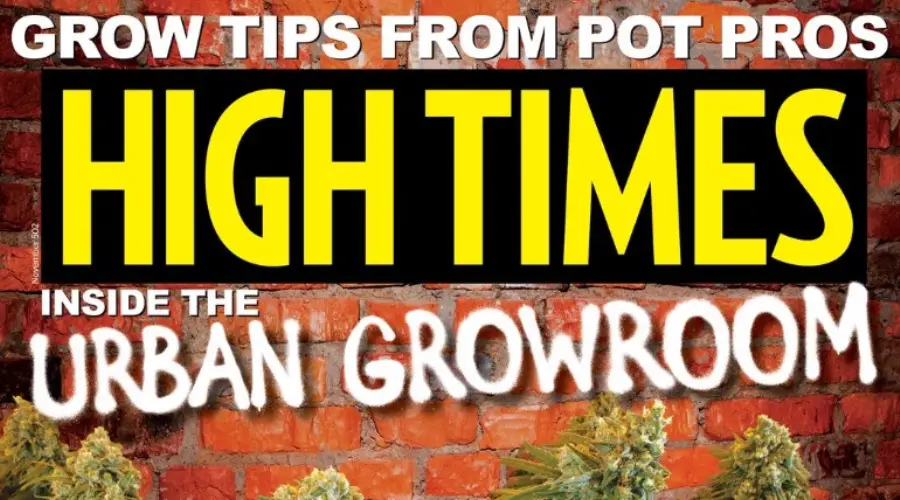
The High Times magazine is an iconic publication in the cannabis culture, known for its bold and distinctive typography. The font used in its logo is a condensed, bold sans-serif typeface, closely resembling Relay Compressed Bold by Cyrus Highsmith.
Relay Compressed Bold by Cyrus Highsmith The most similar font with a bold, condensed style.
The High Times logo appears to use a custom or modified version of a condensed bold font. Relay Compressed Bold is the closest publicly available alternative.